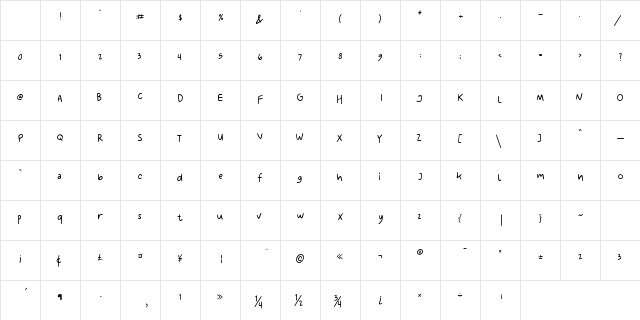
Complete Ririen Note's Regular glyph index. Displaying only characters natively supported by Ririen Note's Regular font.
Ririen Note's is a composed and adaptable typeface that performs quietly and consistently across a wide range of design contexts.